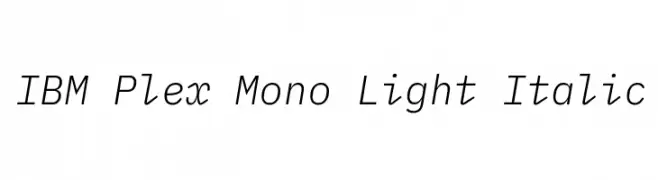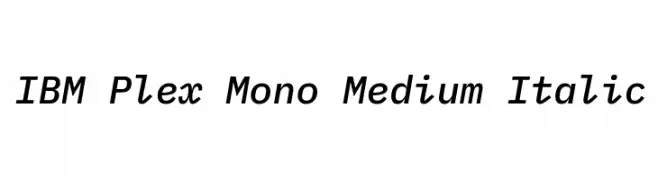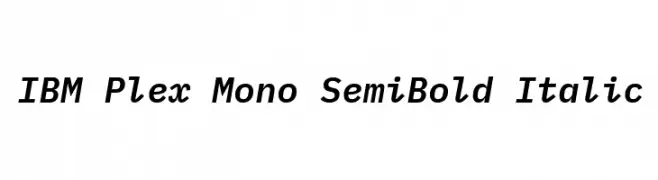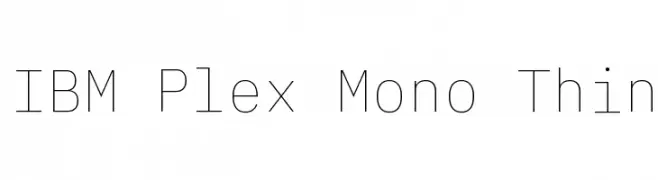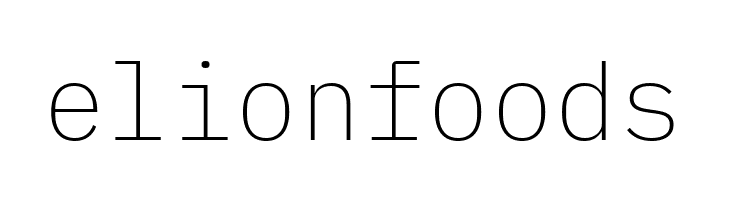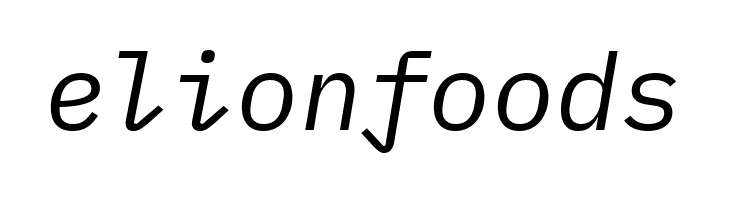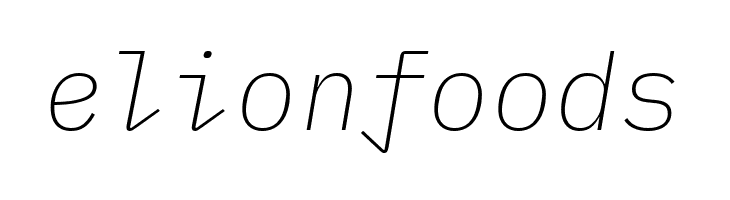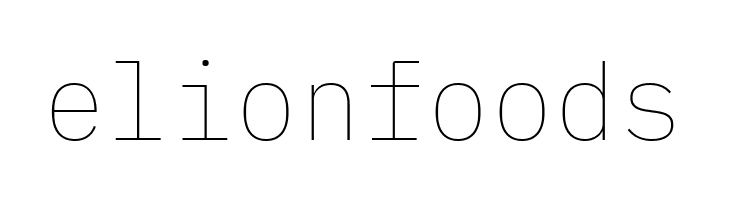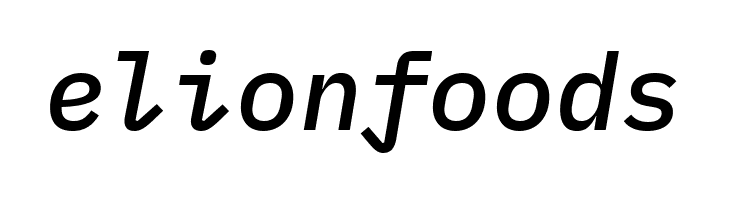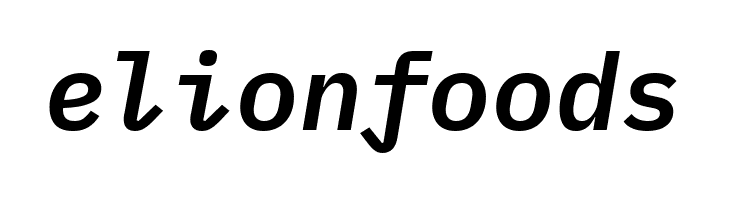
A bold, italic monospaced font with a modern and structured appearance.
A clean, monospaced typeface with a minimalist and modern design.
A bold, monospaced font with a modern, geometric design.
A modern, monospaced italic font with consistent width and sleek design.
A modern, monospaced typeface with medium weight and low contrast, ideal for technical uses.
A sleek, modern monospaced typeface with an extra light, italic style.
A thin, monospaced font with a modern, geometric design.
A modern, monospaced italic font with medium weight and balanced proportions.
A modern, monospaced typeface with semi-bold weight and italic style.
A light, italic, monospaced font with a modern and clean design.